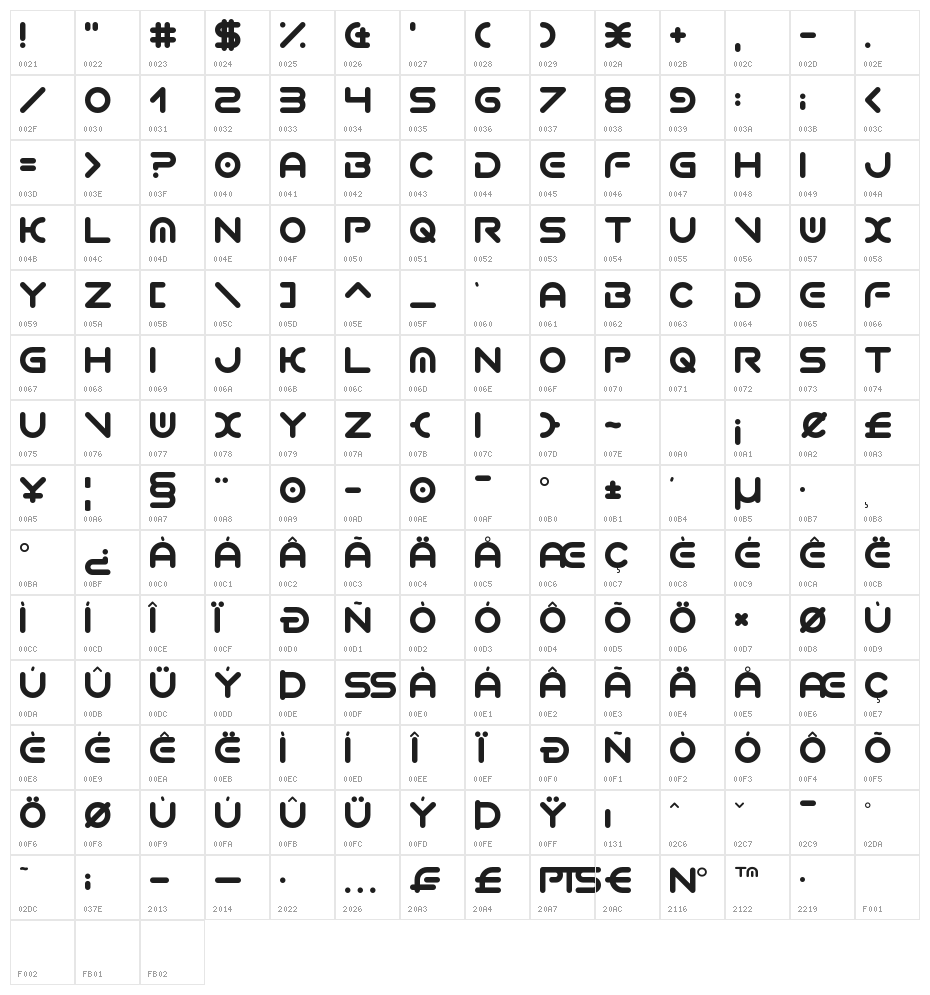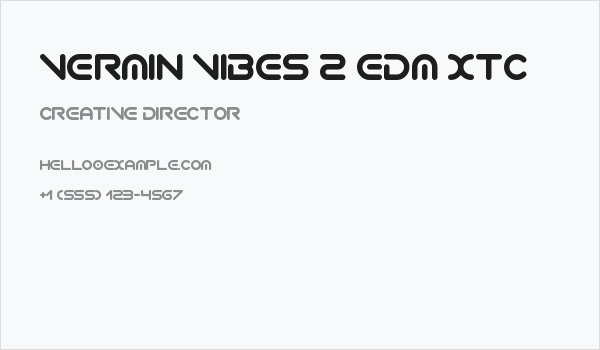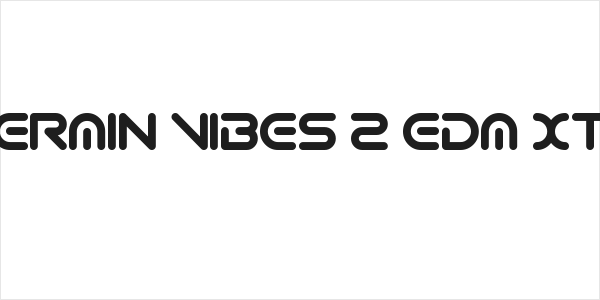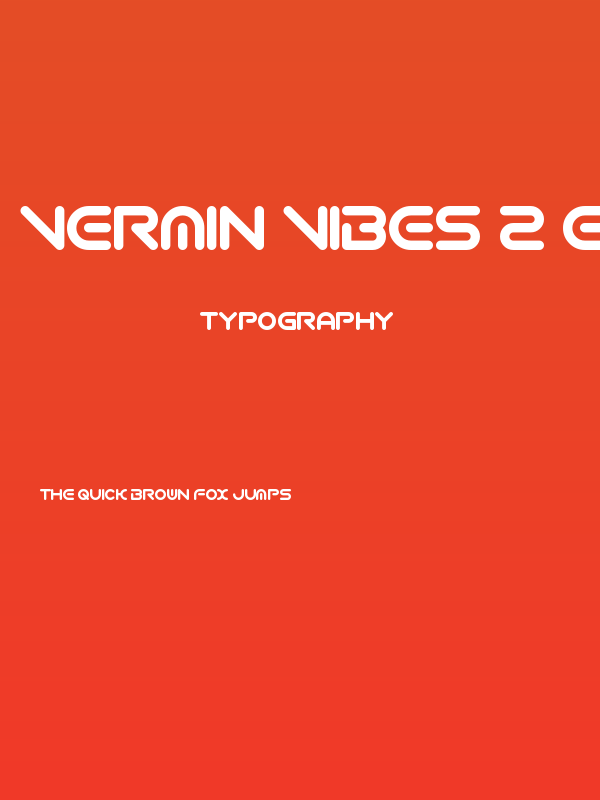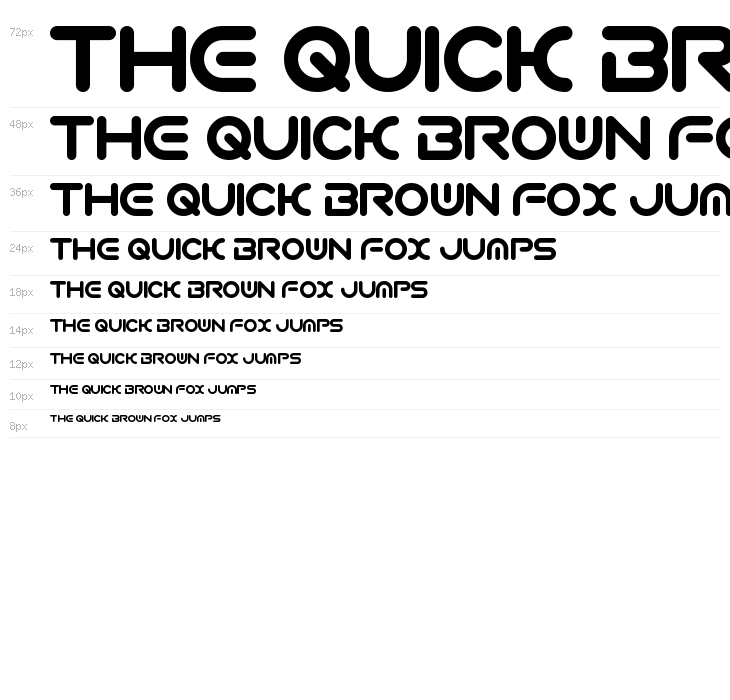
Vermin Vibes 2 EDM XTC Font
Vermin Vibes 2 EDM XTC Description
This font features a futuristic and bold design with rounded edges and a geometric structure. The characters are uniformly thick, creating a cohesive and modern appearance. The uppercase and lowercase letters maintain a consistent style, with a focus on symmetry and balance. Numbers and special characters are designed to match the overall aesthetic, making the font versatile for various applications. The smooth curves and clean lines give it a sleek and polished look, ideal for digital and print media.
Proposed ProjectsIdeal for digital media, tech branding, video game titles, and modern advertising.